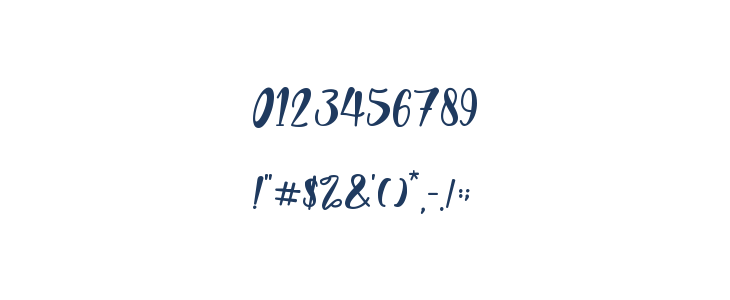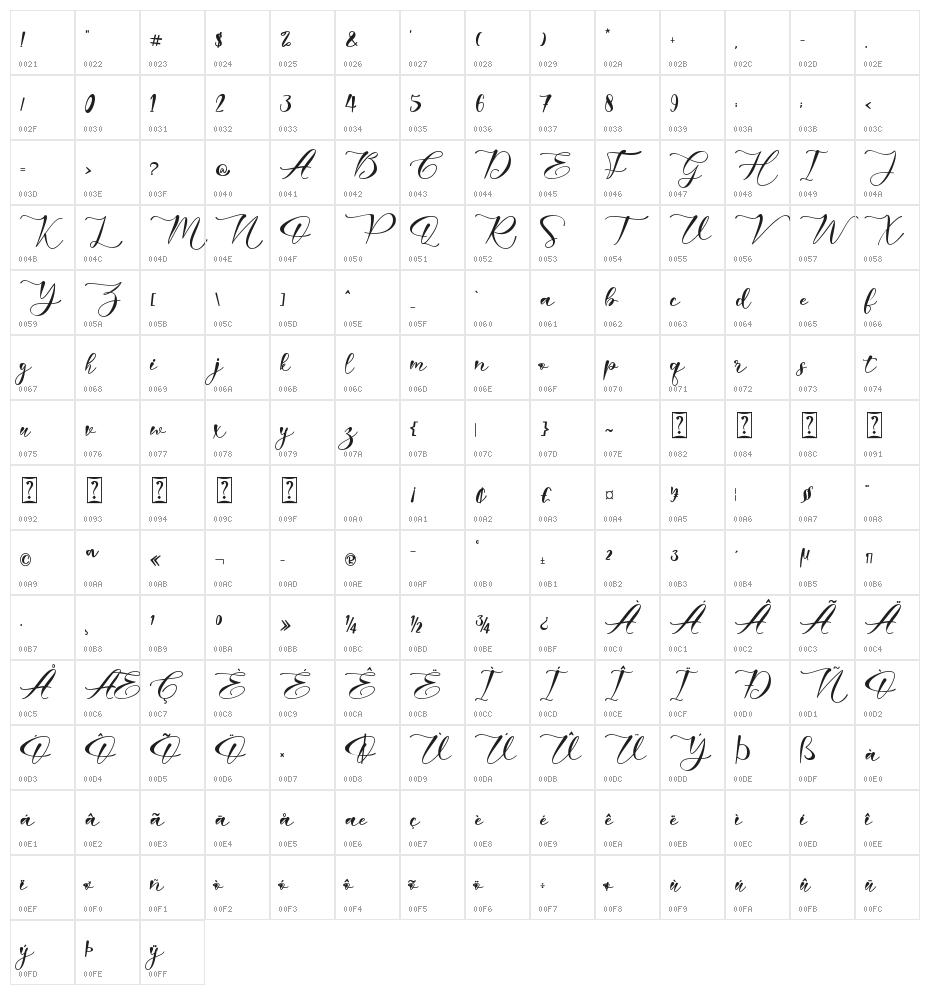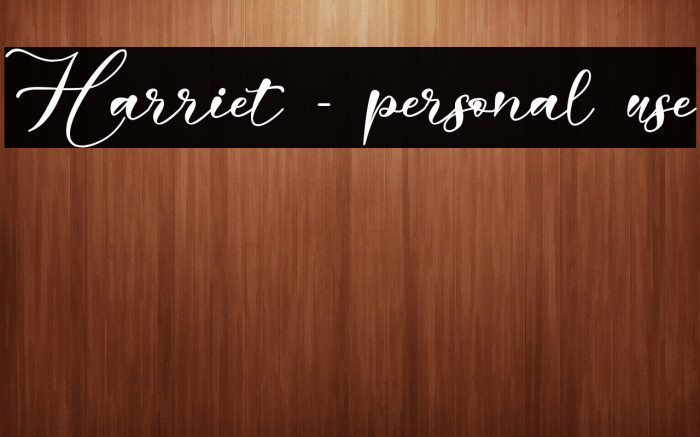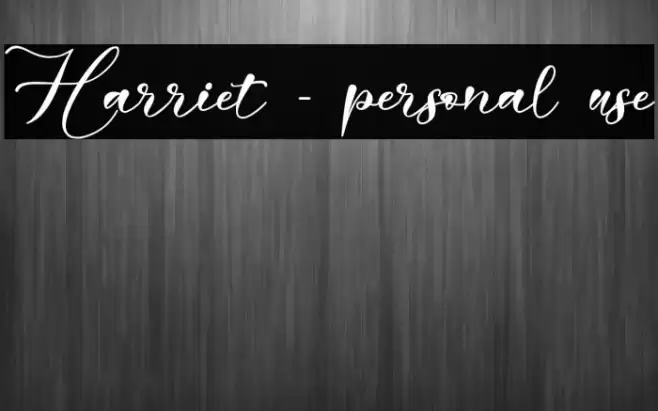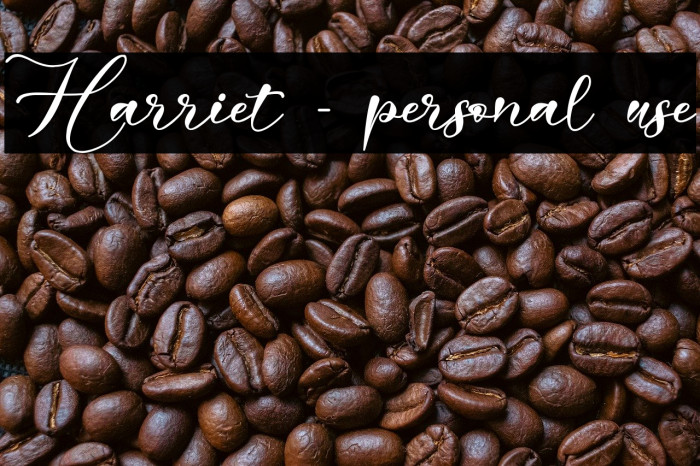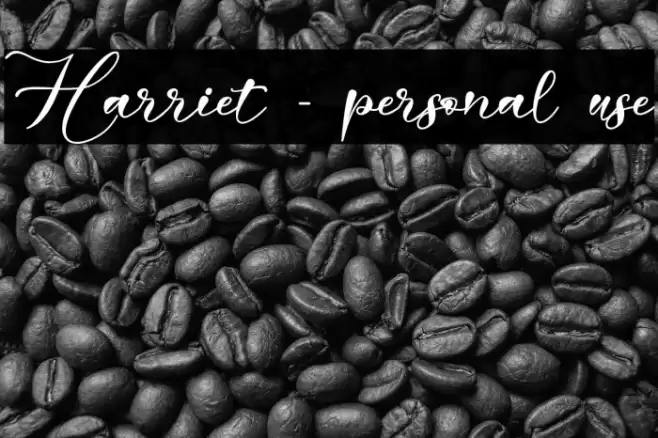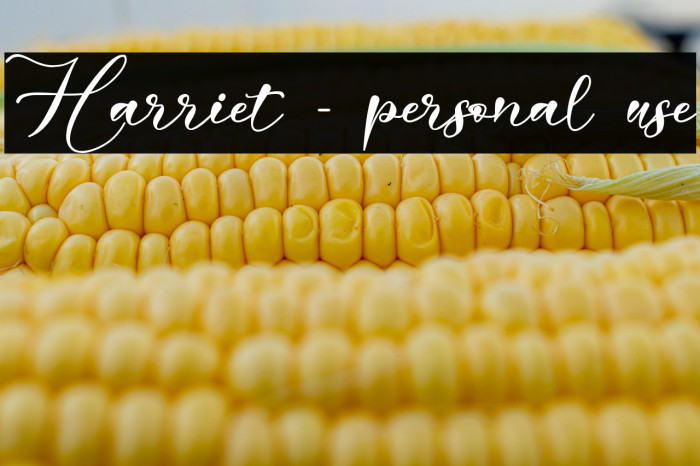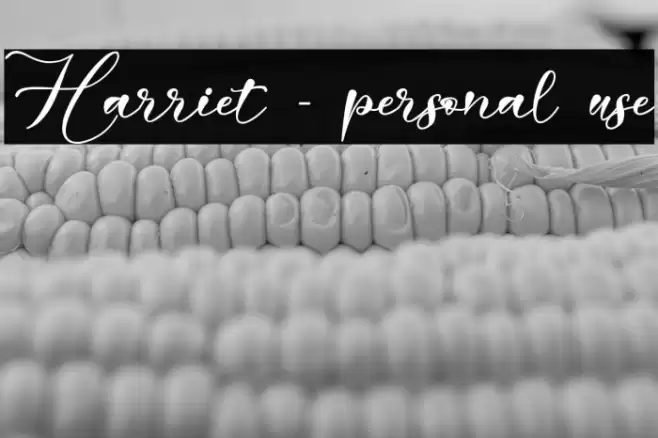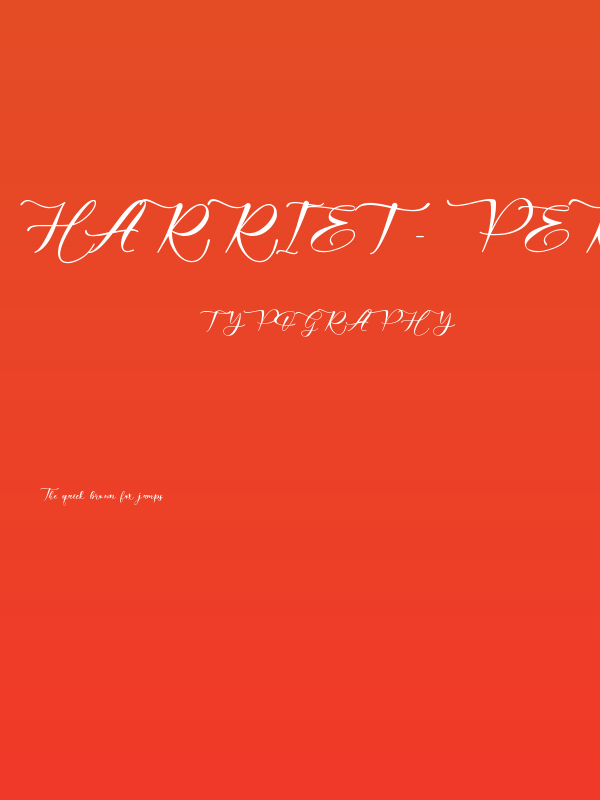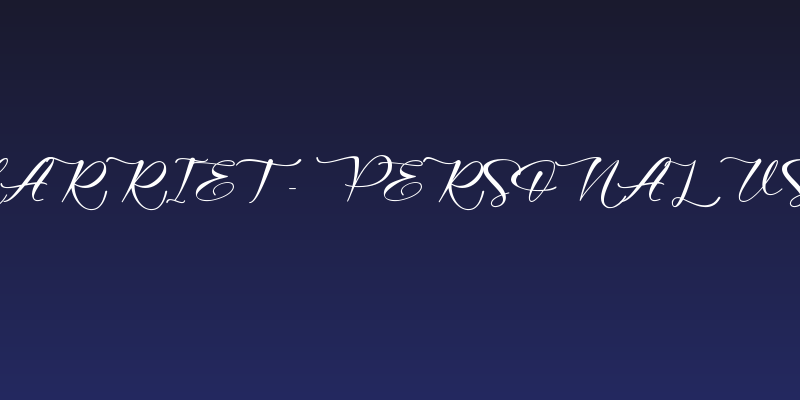
Harriet - personal use Font
Harriet - personal use Description
This font features an elegant and flowing script style, characterized by its smooth, cursive strokes and graceful curves. The uppercase letters display a sophisticated flair, with intricate loops and swashes that add a touch of refinement. The lowercase letters maintain a consistent fluidity, offering a harmonious blend of form and function. The numerals are bold and slightly rounded, providing a balanced contrast to the delicate letterforms. Special characters are thoughtfully designed to complement the overall aesthetic, making this font suitable for a variety of creative applications.
| Use Case | Logos, Invitations, Decorative Text |
| Proposed Projects | Ideal for wedding invitations, elegant branding, personal stationery, and decorative signage. |